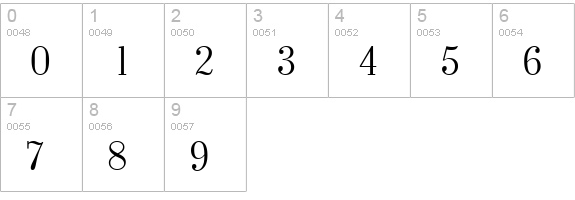
WichitaSerial-Light-Regular is a refined, elegant variant in the WichitaSerial typeface family \xE2\x80\x94 well suited to elegant body text, refined sub-headings, and luxury branding.
WichitaSerial-Light-Regular is a modern and sleek font that exudes elegance and sophistication. With its clean lines and balanced letterforms, this font is perfect for a wide range of design projects, from branding to editorial design. The light weight adds a touch of delicacy and refinement to your text, making it ideal for conveying a sense of style and professionalism. The best part? WichitaSerial-Light-Regular is available for free download at FontsMarket.com. This means you can easily access this versatile font and use it in your projects without any cost. Whether you're designing a logo, creating a website, or working on a print layout, WichitaSerial-Light-Regular is sure to elevate your design with its timeless appeal and versatility. Don't miss out on this opportunity to enhance your designs with the elegance of WichitaSerial-Light-Regular. Download it for free today at FontsMarket.com and start creating stunning visuals that leave a lasting impression.